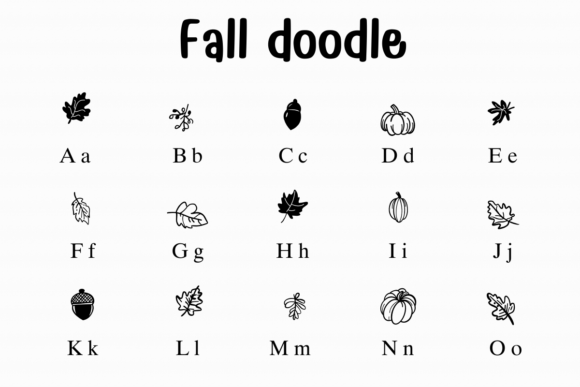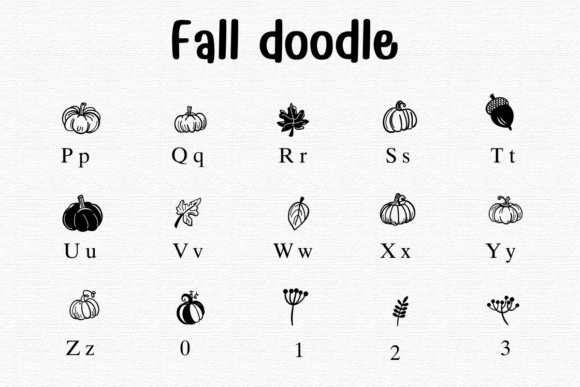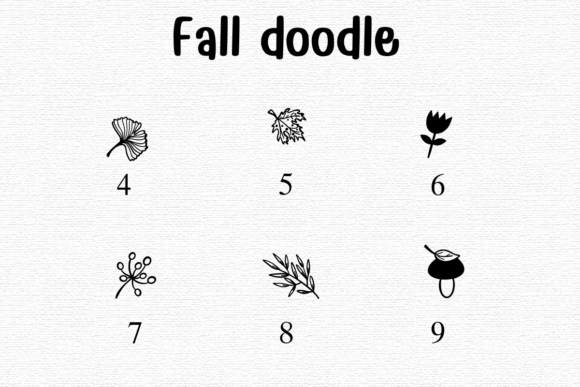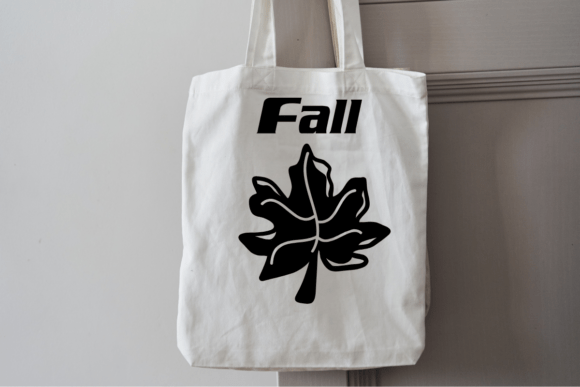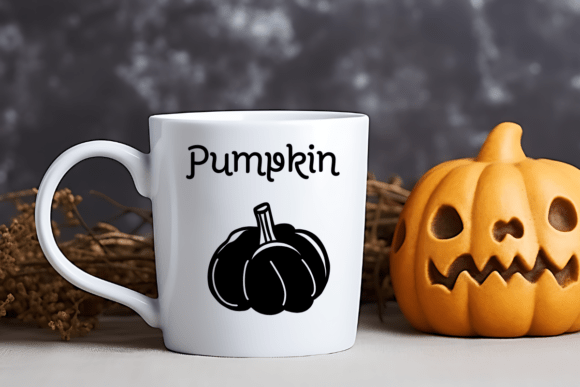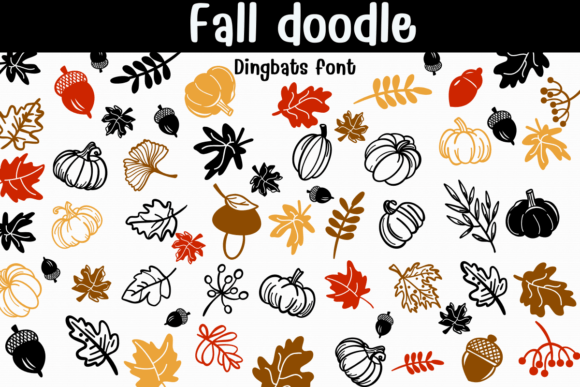
Fall Doodle Font: Cozy Autumn Energy for Your Designs
As the leaves change colors and the air grows crisper, it’s the perfect time to infuse your designs with the warmth and coziness of autumn. Introducing the Fall Doodle Font, a hand-drawn dingbats font set that captures the essence of the season. With its clean vectors, rounded terminals, and steady strokes, this font is perfect for creating stunning illustrations, planner stickers, and posters.
What is Fall Doodle Font?
Fall Doodle Font is a unique and versatile font set that features a wide range of autumn-themed icons, including oaks, maples, ginkgo leaves, acorns, pumpkins, sprigs, and berries. The font is designed to be easily typeable, making it simple to create borders, badges, and repeat patterns. With its mapped alphabet, you can quickly access the various icons and get creative with your designs.
Key Features of Fall Doodle Font
- Hand-drawn dingbats font set: Each icon is carefully crafted to bring a touch of autumn charm to your designs.
- Clean vectors with rounded terminals: The font features clean lines and rounded edges, making it perfect for scaling from small planner stickers to large posters.
- Steady, low-contrast strokes: The font’s strokes are designed to be smooth and consistent, giving your designs a professional look.
- Mix of outline and solid silhouettes: The font includes a mix of outline and solid icons, allowing for instant light-dark interplay and easy duotone layering.
- Organic asymmetry and gentle bounce: The font’s organic feel and gentle bounce keep compositions friendly and approachable, never clip-arty.
- Mapped across the basic alphabet: The font is mapped across the basic alphabet, making it easy to access the various icons and create custom designs.
How to Use Fall Doodle Font
Fall Doodle Font is incredibly versatile and can be used in a variety of ways. Here are a few ideas to get you started:
- Create planner stickers: Use the font to create custom planner stickers that add a touch of autumn charm to your planner or journal.
- Design posters: Scale up the font to create stunning posters that showcase the beauty of autumn.
- Make borders and badges: Use the font to create custom borders and badges that add a seasonal touch to your designs.
- Create repeat patterns: Use the font to create repeat patterns that feature autumn-themed icons.
Customizing Fall Doodle Font
One of the best things about Fall Doodle Font is its customizability. Here are a few ways you can make the font your own:
- Recolor to match brand tones: Easily recolor the font to match your brand’s tones and create a cohesive look.
- Convert to strokes for decals: Convert the font to strokes to create decals that can be used in a variety of designs.
- Stack filled and outline glyphs for depth: Stack filled and outline glyphs to create depth and add visual interest to your designs.
Pairing Fall Doodle Font with Other Fonts
Fall Doodle Font pairs perfectly with a variety of fonts, including:
- Chunky sans fonts: Pair the font with a chunky sans font for a bold and playful look.
- Cozy script fonts: Pair the font with a cozy script font for a warm and inviting look.
Fall Doodle Font is a unique and versatile font set that captures the essence of autumn. With its clean vectors, rounded terminals, and steady strokes, this font is perfect for creating stunning illustrations, planner stickers, and posters. Whether you’re a designer or crafter, Fall Doodle Font is a must-have for adding a touch of autumn charm to your designs.